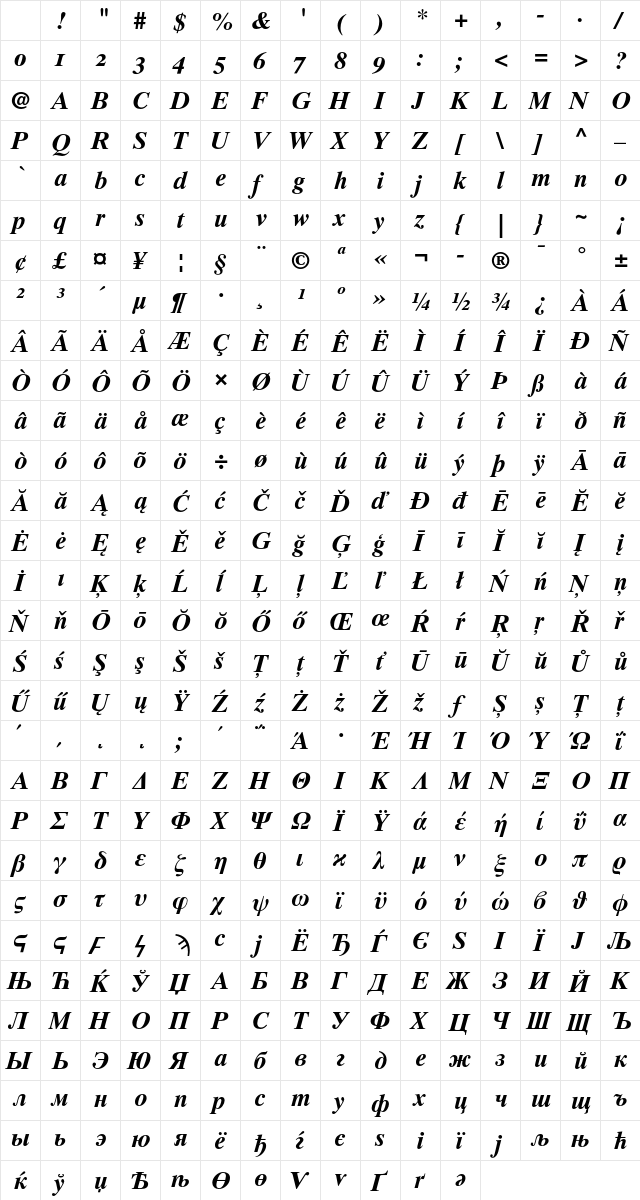
Complete Asteria Bold Italic glyph index. Displaying only characters natively supported by Asteria Bold Italic font.
Asteria is a composed and adaptable typeface that performs quietly and consistently across a wide range of design contexts. The slanted form adds forward momentum and visual energy. Its bold stroke weight gives it real presence on the page.
Pro Tip: Use Asteria for emphasis, pull quotes, and subheadings where its slanted energy can add rhythm to the layout.